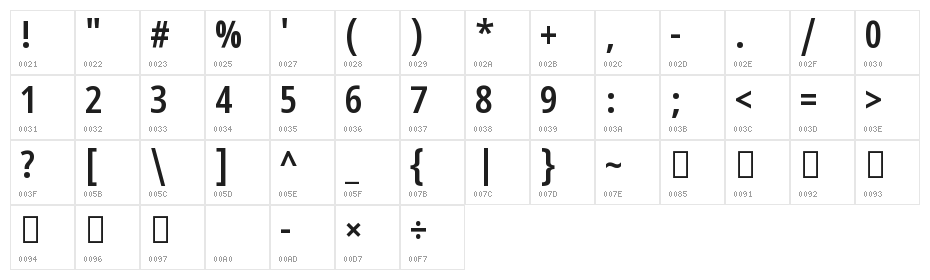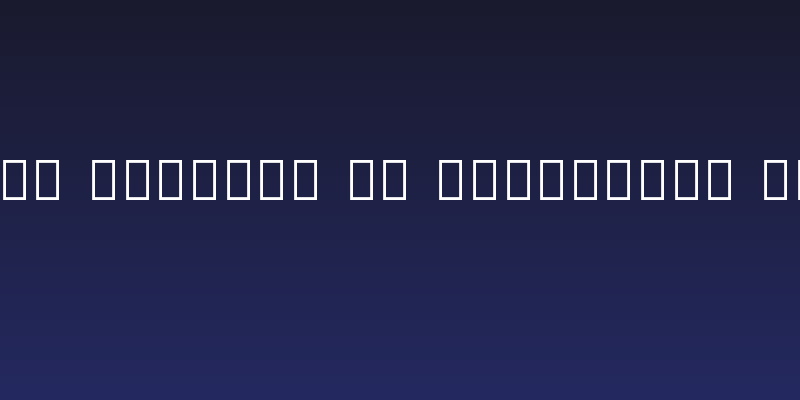
Noto Sans Sinhala UI Condensed SemiBold Font
Noto Sans Sinhala UI Condensed SemiBold Description
This font is a modern sans-serif typeface with a clean and straightforward design. It features a condensed width, making it suitable for space-saving applications. The semi-bold weight provides a balanced emphasis without being overly heavy, ensuring readability and clarity. The characters are well-proportioned, with a consistent stroke width that offers a uniform appearance. The numerals and special characters are designed to match the overall aesthetic, providing a cohesive look across different uses. This font is ideal for digital interfaces, offering a user-friendly experience with its clear and legible style.
| Use Case | UI design, Digital interfaces |
| Proposed Projects | Suitable for UI design, web applications, mobile apps, and digital content where space is limited. |